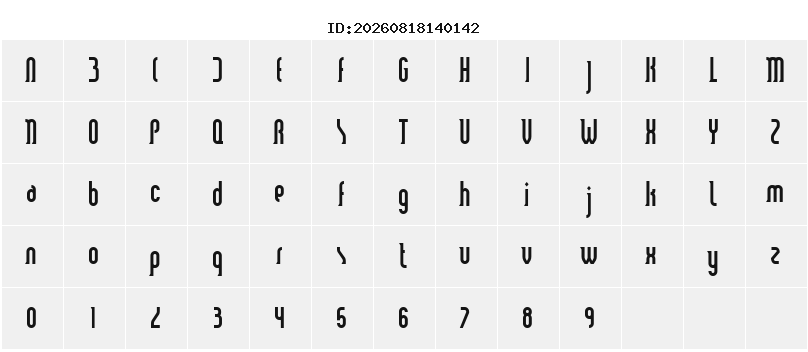
Smart and Sexy Preview
• Font Name: Smart and Sexy
• Full Font Name: Smart and Sexy Bold
About Smart and Sexy.ttf
Smart and Sexy.ttf is a modern, elegant sans-serif font designed for ultimate readability and visual harmony. Perfect for branding, headlines, web design, and print materials.